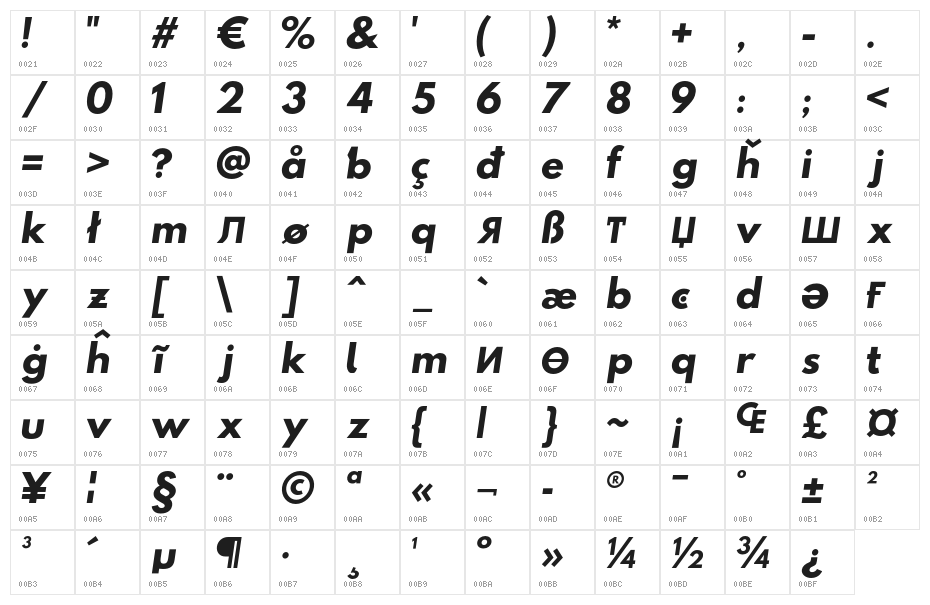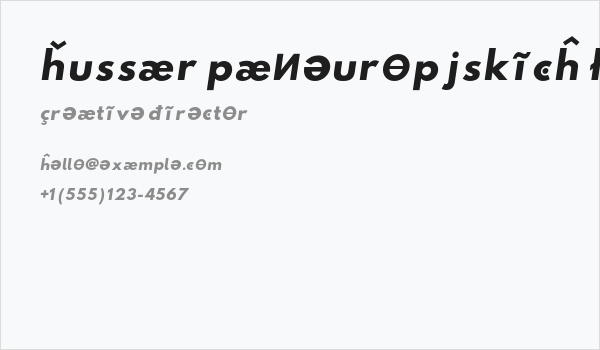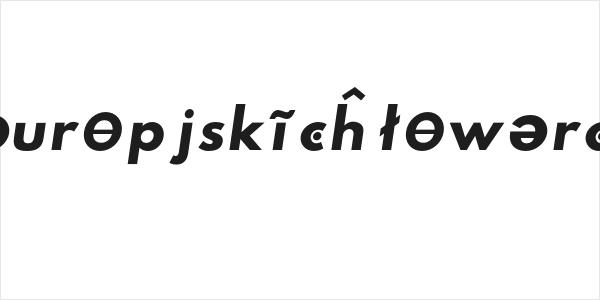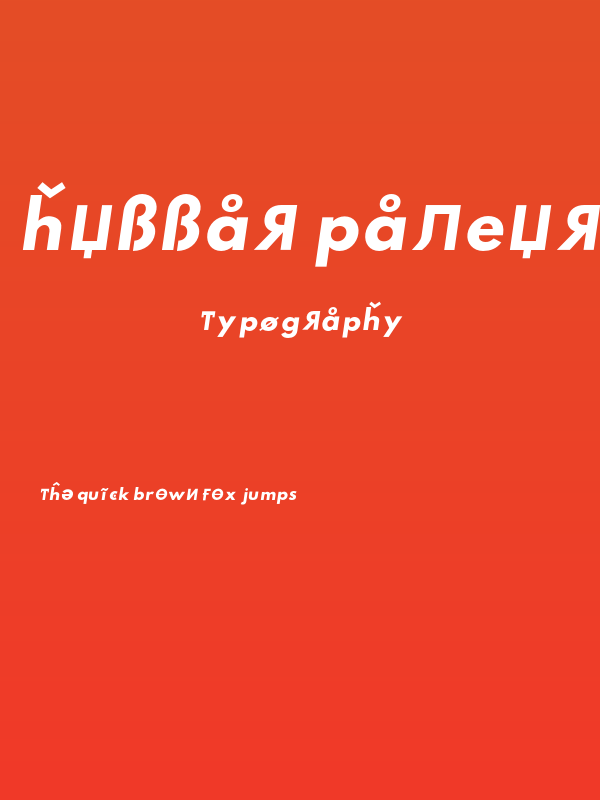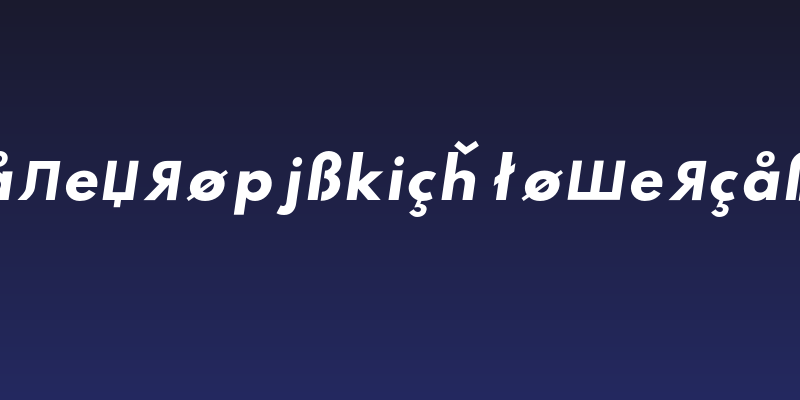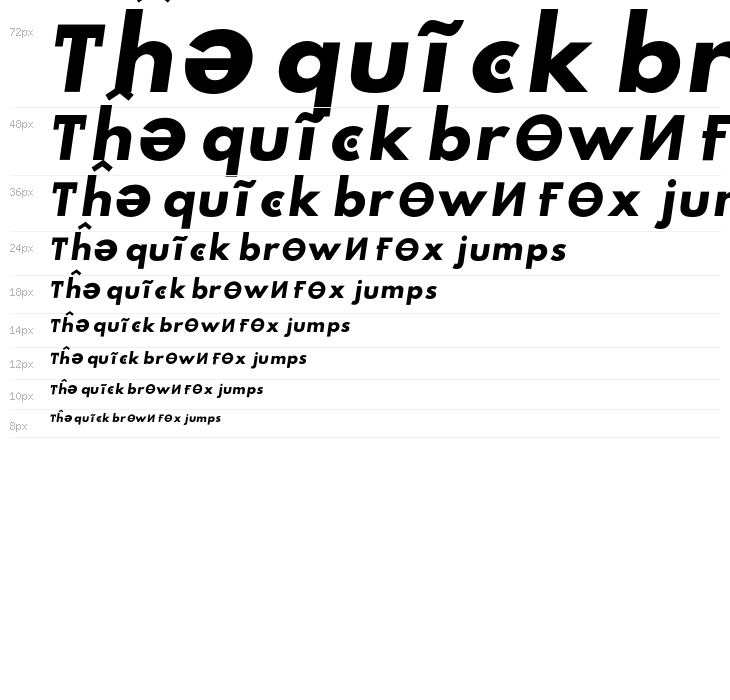
Hussar Paneuropjskich Lowercase Oblique Font
Hussar Paneuropjskich Lowercase Oblique Description
This font features a bold and dynamic style with a distinct oblique slant, giving it a sense of movement and energy. The characters are well-defined with a modern aesthetic, incorporating a mix of sharp and rounded edges. The uppercase letters are particularly striking, with unique shapes that stand out, while the lowercase letters maintain a consistent flow. The numerals are clear and easy to read, complementing the overall design. Special characters are included, adding versatility for various uses. The font's strong presence makes it suitable for impactful headlines and branding.
| Proposed Projects | Ideal for branding, advertising, and editorial design where a strong, modern look is desired. |